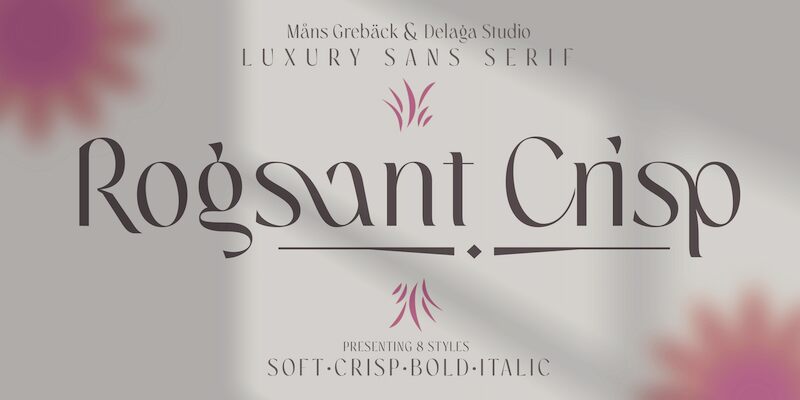
Rogsant Crisp is a luxurious sans serif typeface that combines contrasting letterforms with delicate and fine features, creating a beautiful and tasteful appearance. Designed by Mans Greback & Delaga, this clean and clear font exudes professionalism and style
With its refined appearance, Rogsant Crisp is created for designs that require a touch of luxury and delicacy.
Use underscore _ anywhere in a word set a decorative underline.
Use multiple underscores for longer swashes.
Example: Fine__Arts